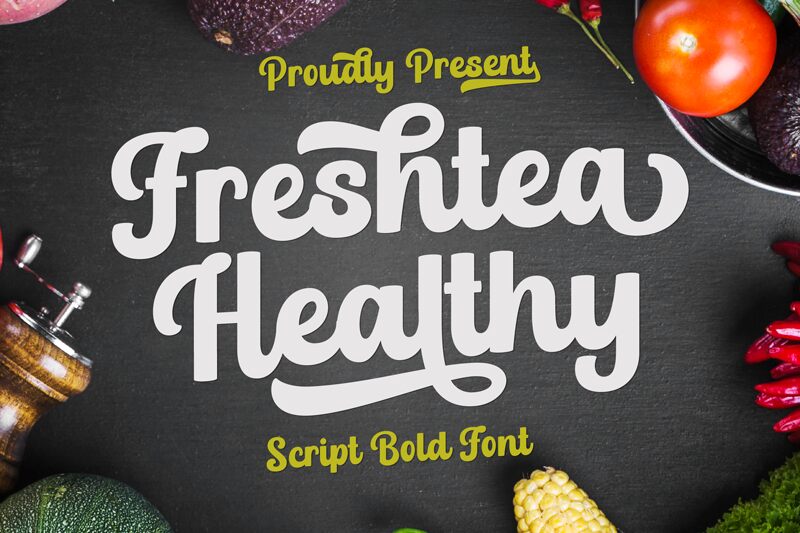
Freshtea Healthy, a bold retro script font by Ahwe Project, exudes a nostalgic charm that effortlessly captures the essence of vintage aesthetics. With its confident strokes and whimsical curves, this typeface adds a touch of playfulness to any project it graces.
Its distinctively bold weight commands attention, making it ideal for eye-catching headlines, logos, packaging designs or even social media graphics. Whether you're working on a retro-inspired brand identity, a food and beverage label or an event poster, Freshtea Healthy is the perfect choice to infuse your project with character and personality.